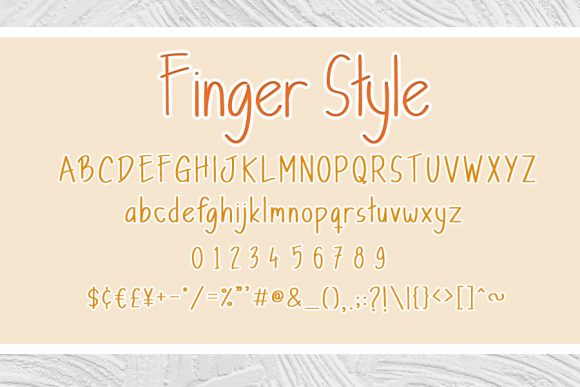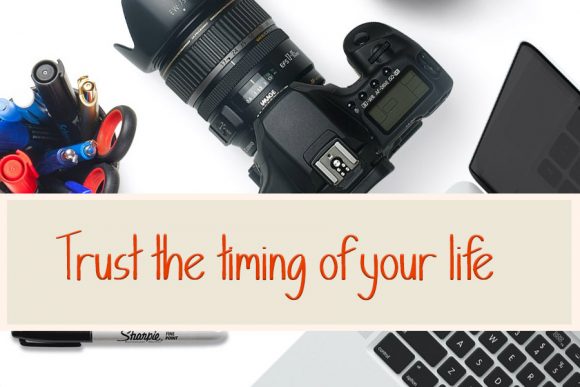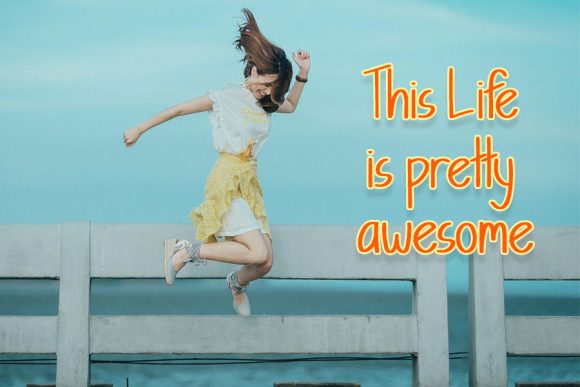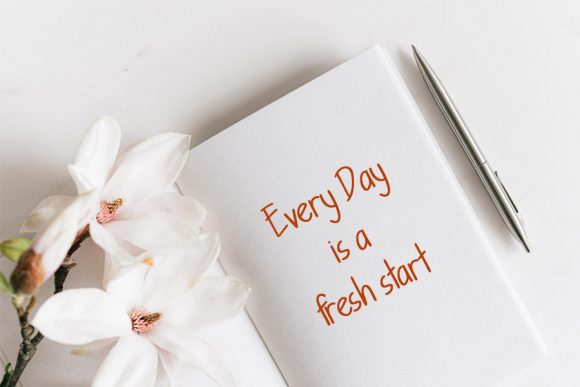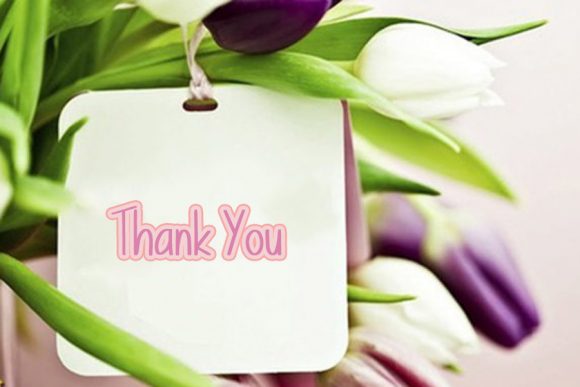
Finger Style Font: Adding a Touch of Whimsy to Your Designs
Finger Style Font is a fun and simple handwritten font that has been gaining popularity among designers and crafters alike. Its unique style and playful vibe make it the perfect addition to any creative project. In this article, we’ll dive into the world of Finger Style Font and explore how it can bring your ideas to life.
The Charm of Finger Style Font
Finger Style Font is a handwritten font that exudes a sense of playfulness and friendliness. Its unique style is characterized by irregular letterforms, varying line widths, and a dash of whimsy. This font is perfect for designers who want to add a personal touch to their work, or for crafters who want to create handmade cards, gift tags, and other paper crafts.
What Makes Finger Style Font So Special?
• Unique Style: Finger Style Font has a one-of-a-kind style that sets it apart from other handwritten fonts. Its irregular letterforms and varying line widths give it a distinctly handmade feel.
• Easy to Read: Despite its playful style, Finger Style Font is surprisingly easy to read. This makes it perfect for use in body text, headings, and titles.
• Versatile: Finger Style Font can be used in a wide range of creative projects, from digital designs to handmade crafts.
• Fun: Let’s face it – Finger Style Font is just plain fun! Its playful vibe is sure to bring a smile to your face and inspire your creativity.
Using Finger Style Font in Your Designs
Finger Style Font is a versatile font that can be used in a wide range of creative projects. Here are a few ideas to get you started:
• Handmade Cards: Add a personal touch to your handmade cards with Finger Style Font. Use it to create custom greetings, titles, and messages.
• Digital Designs: Use Finger Style Font in your digital designs, such as social media graphics, blog posts, and website headers.
• Paper Crafts: Finger Style Font is perfect for paper crafts, such as gift tags, scrapbooking, and journaling.
• Branding: Use Finger Style Font to add a playful touch to your brand’s identity. It’s perfect for logos, business cards, and packaging.
Tips for Getting the Most Out of Finger Style Font
Here are a few tips for getting the most out of Finger Style Font:
• Experiment with Colors: Finger Style Font looks great in a variety of colors. Experiment with different hues and combinations to find the perfect look for your project.
• Mix and Match: Don’t be afraid to mix and match Finger Style Font with other fonts. This can add visual interest and create a unique look.
• Play with Size: Finger Style Font looks great in a range of sizes. Experiment with different font sizes to create visual hierarchy and add emphasis.
Finger Style Font is a fun and simple handwritten font that can add a touch of whimsy to your designs. Its unique style, ease of use, and versatility make it perfect for designers and crafters alike. Whether you’re creating handmade cards, digital designs, or branding materials, Finger Style Font is sure to bring your ideas to life. So why not give it a try and see the magic for yourself?
Get Creative with Finger Style Font!
Add Finger Style Font to your most creative ideas and notice how it makes them come alive! With its unique style, ease of use, and versatility, Finger Style Font is the perfect addition to any creative project.